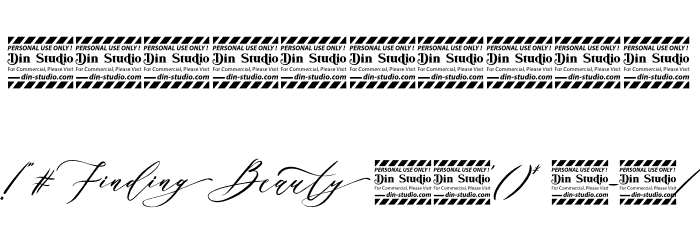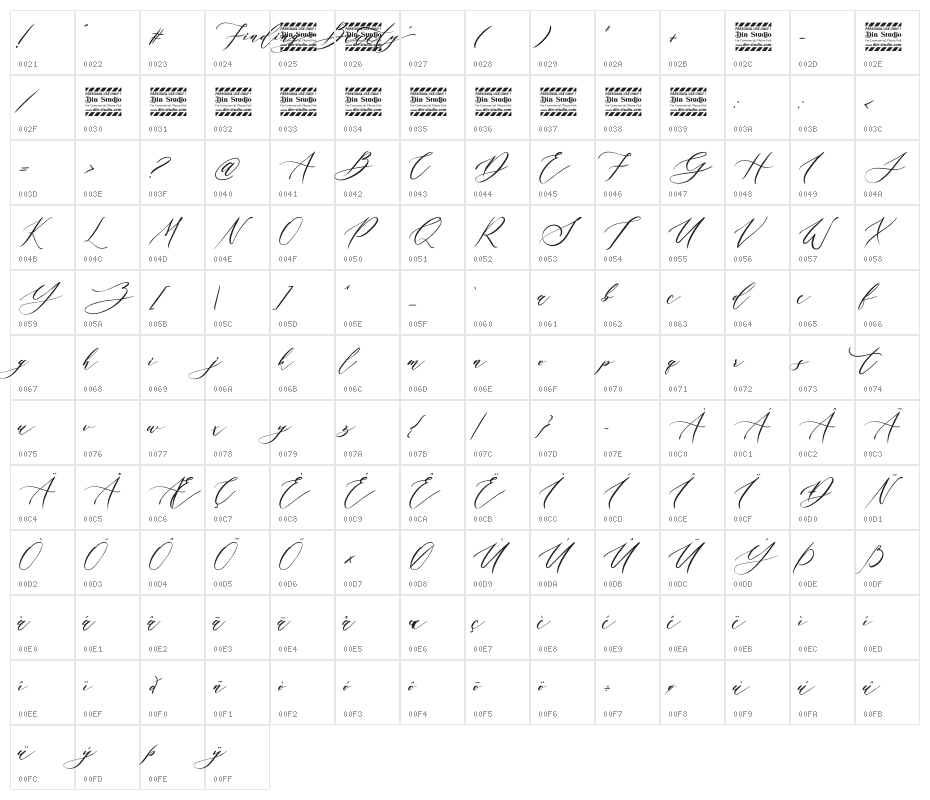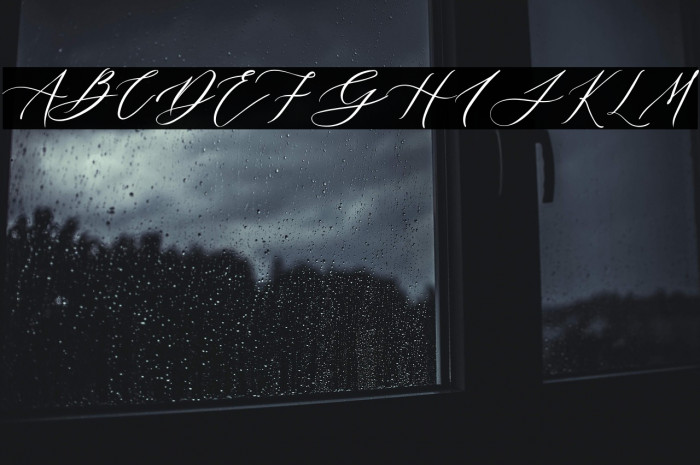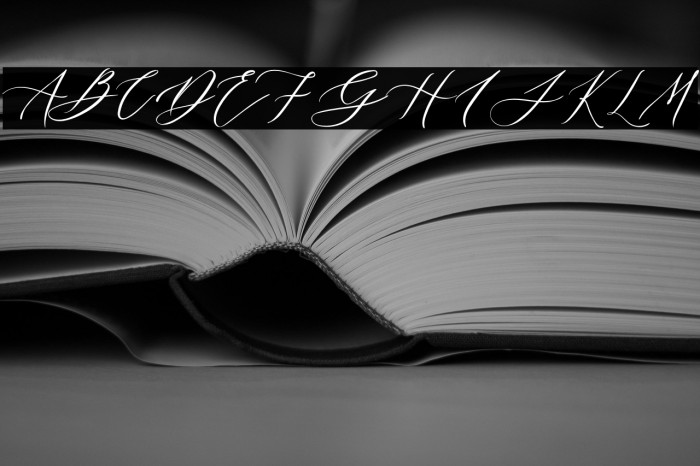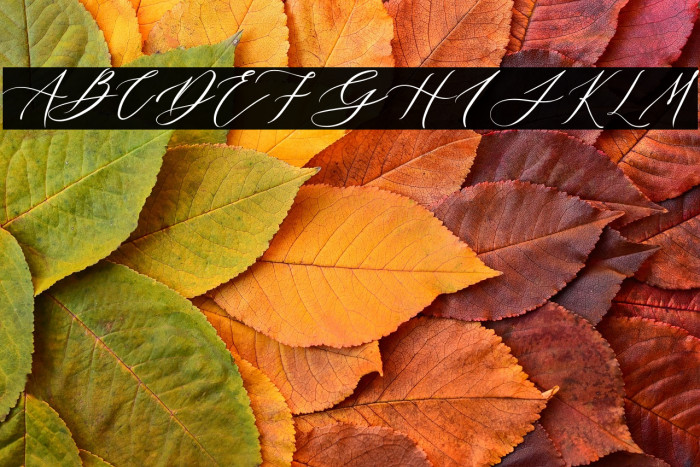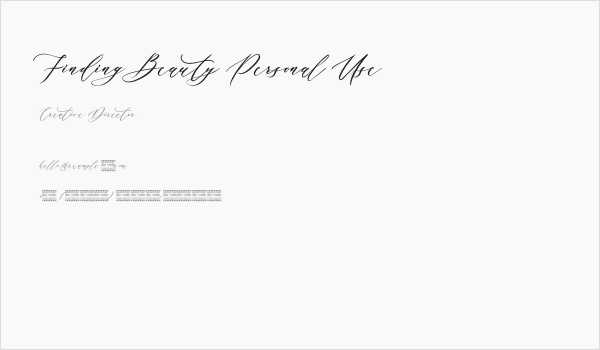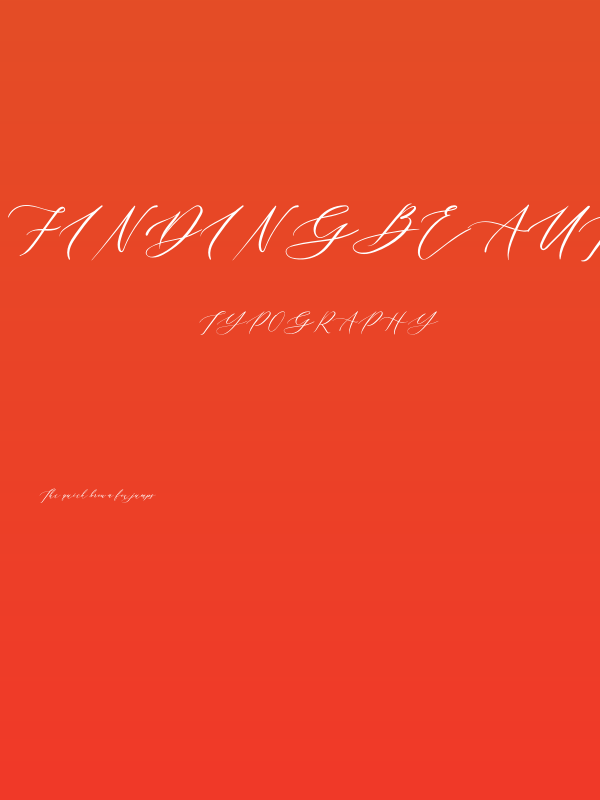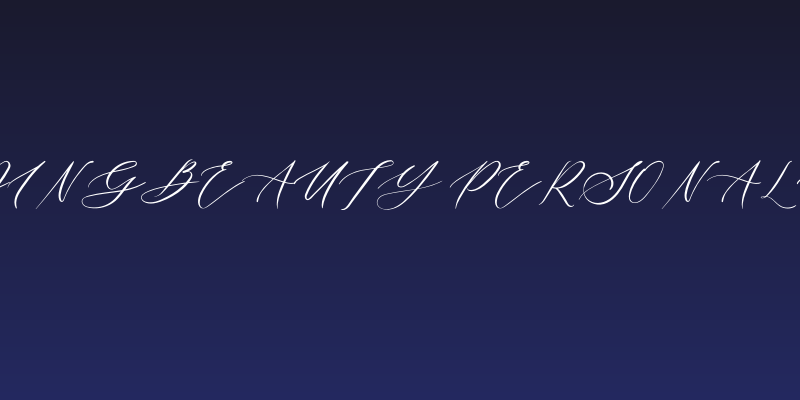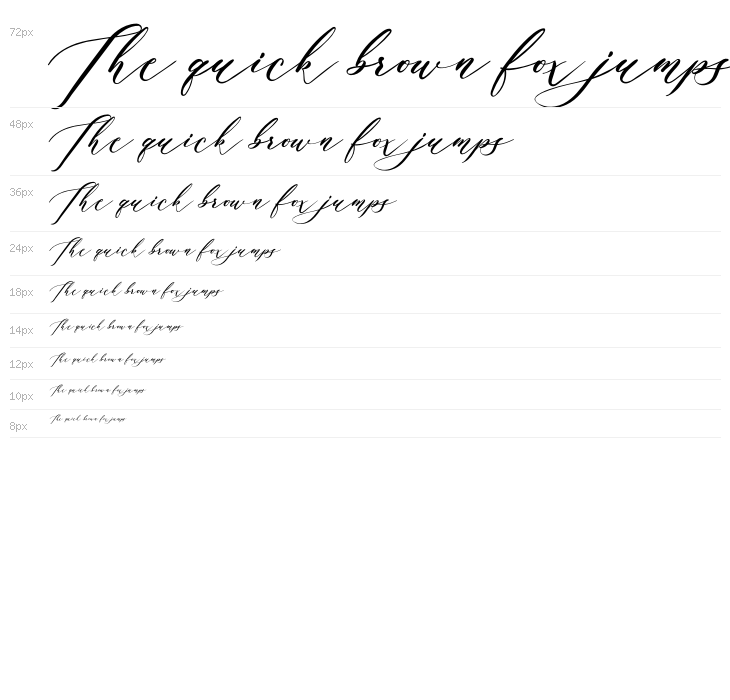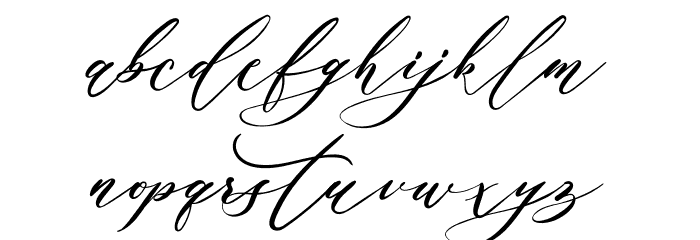
Finding Beauty Personal Use Font
Finding Beauty Personal Use Description
This elegant script font features fluid, graceful strokes that mimic the natural flow of handwriting. The uppercase letters are characterized by their sweeping, elongated lines, while the lowercase letters maintain a consistent, flowing style. The font includes a variety of special characters, enhancing its versatility. Its overall appearance is sophisticated and artistic, making it ideal for projects that require a personal touch. The contrast between thick and thin strokes adds to its visual appeal, creating a dynamic and engaging look.
| Overall Style | Elegant, Artistic |
| Use Case | Logos, Invitations, Personal stationery |
| Proposed Projects | Ideal for wedding invitations, greeting cards, branding, and personal stationery. |